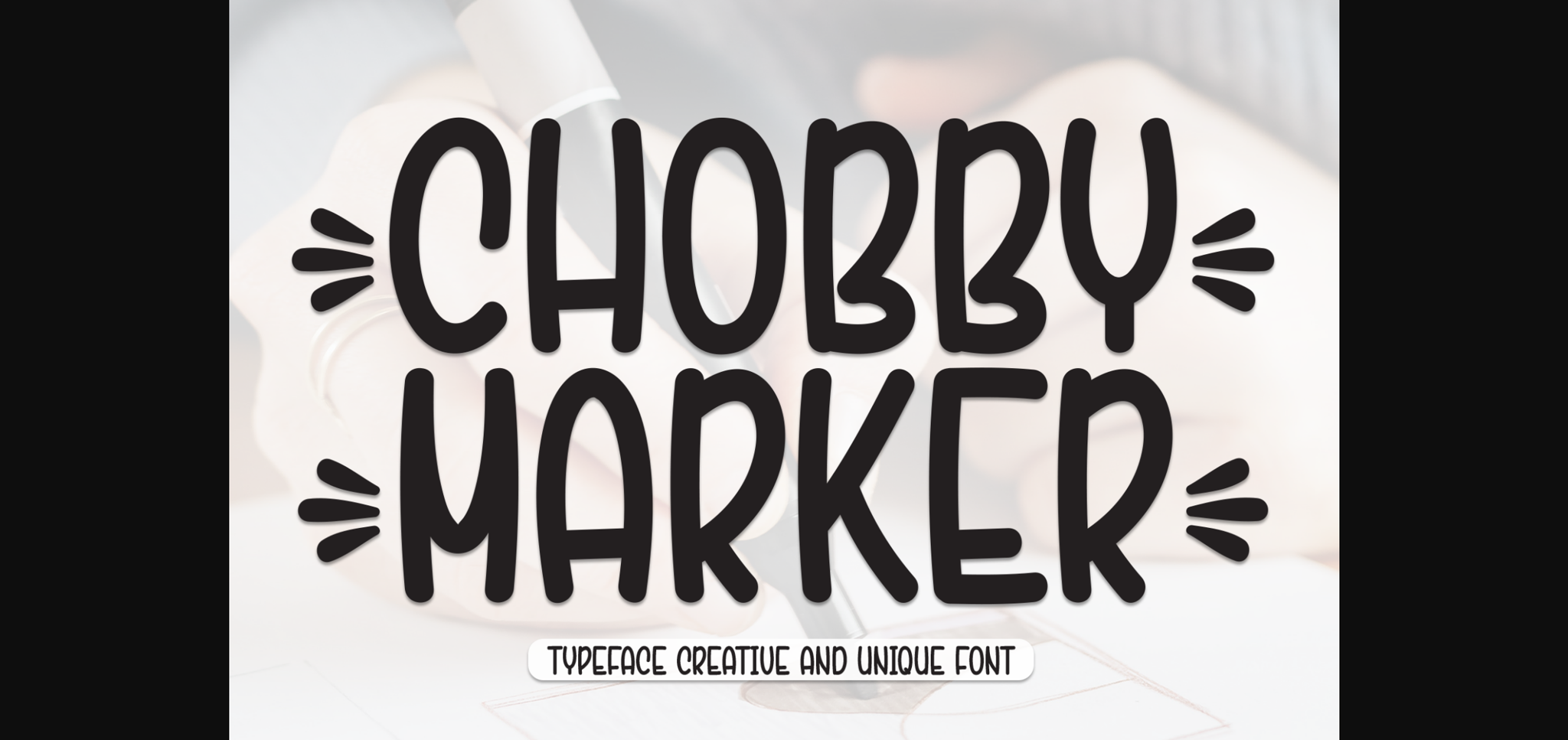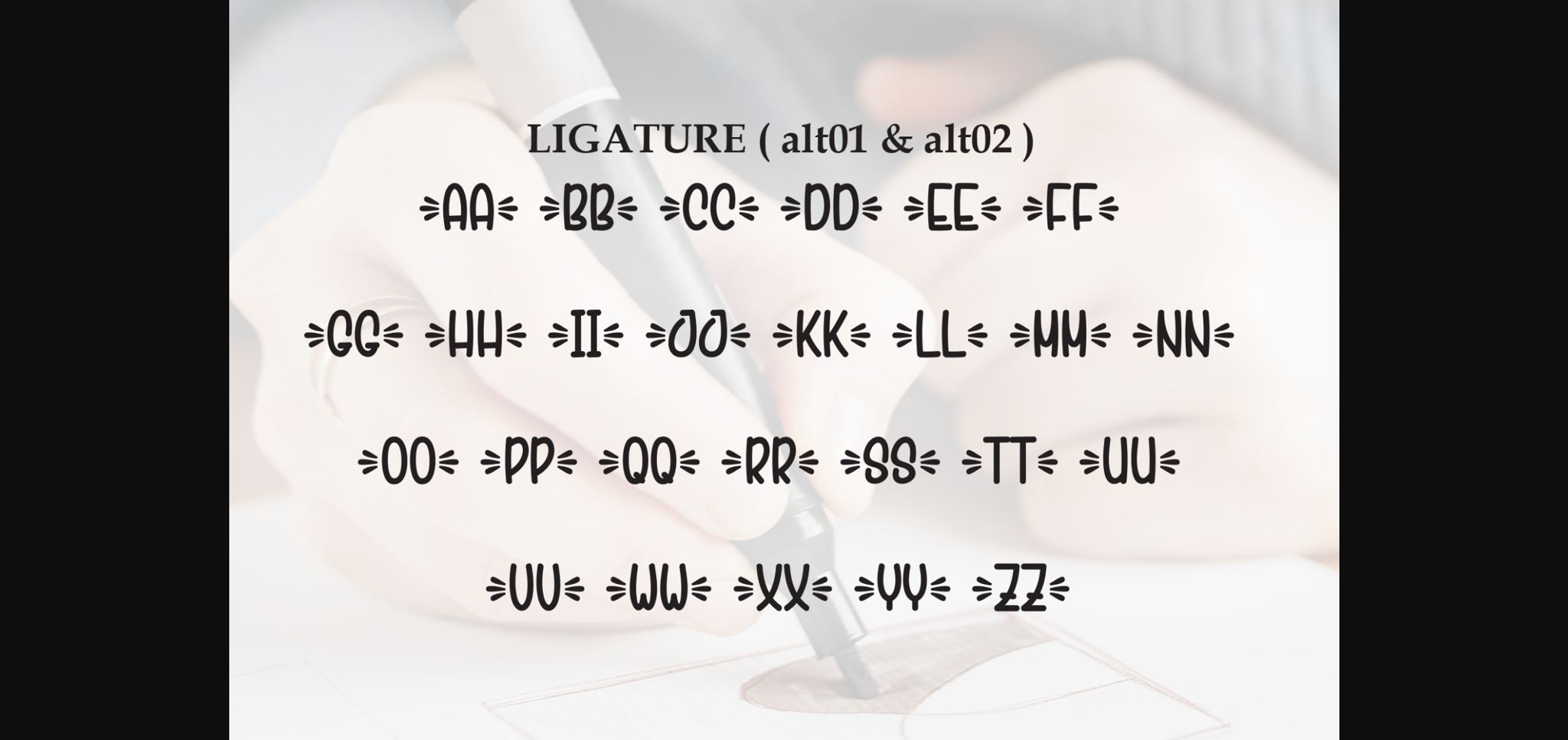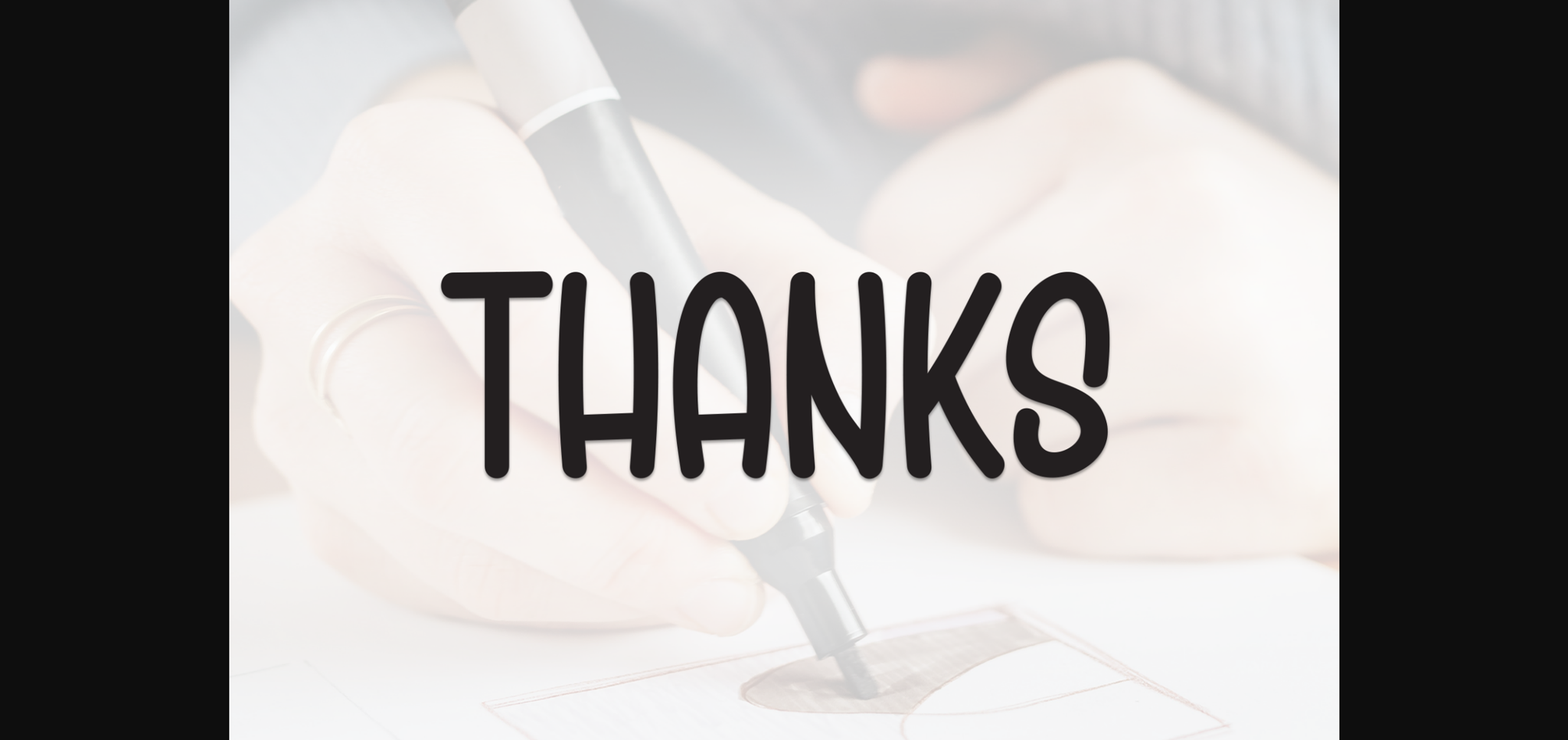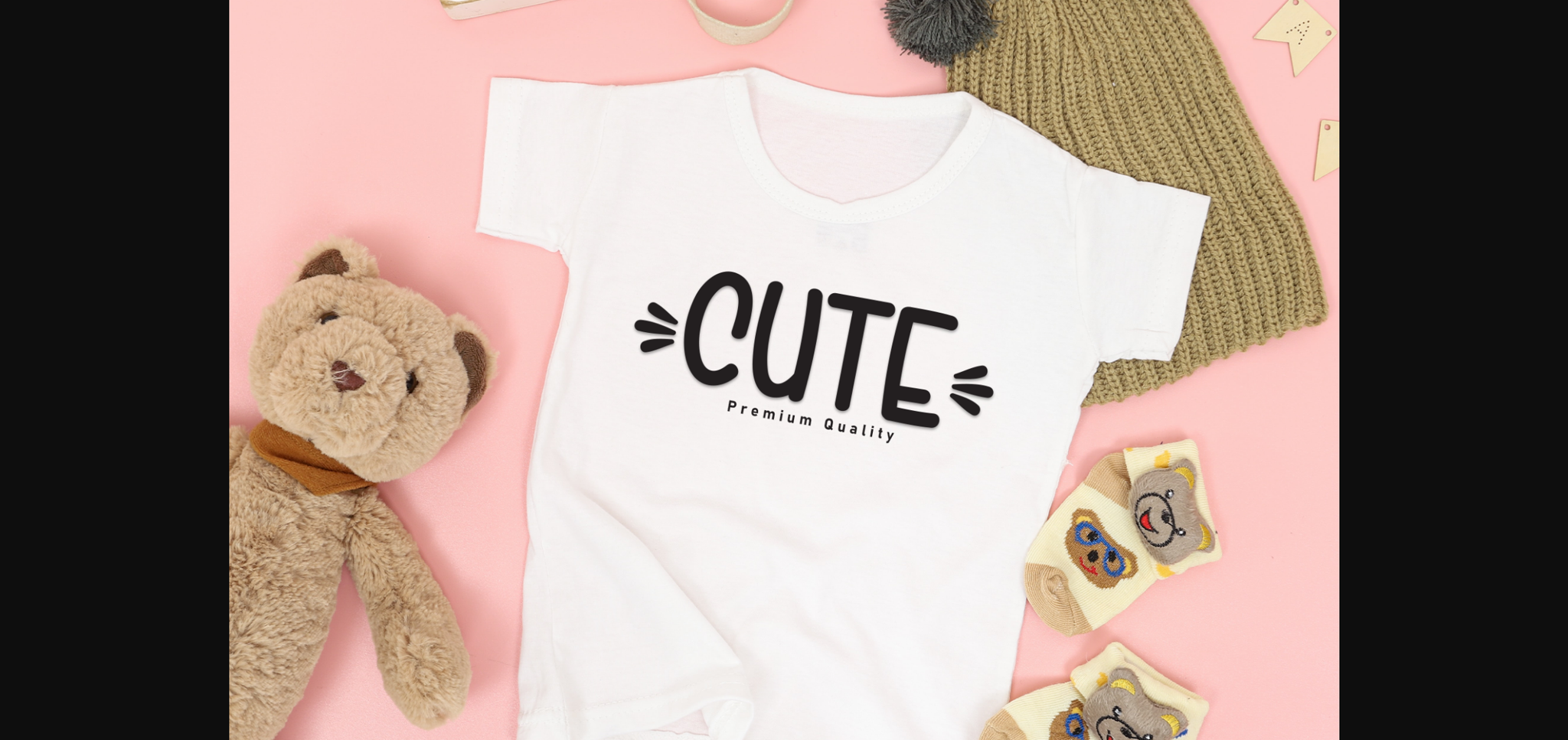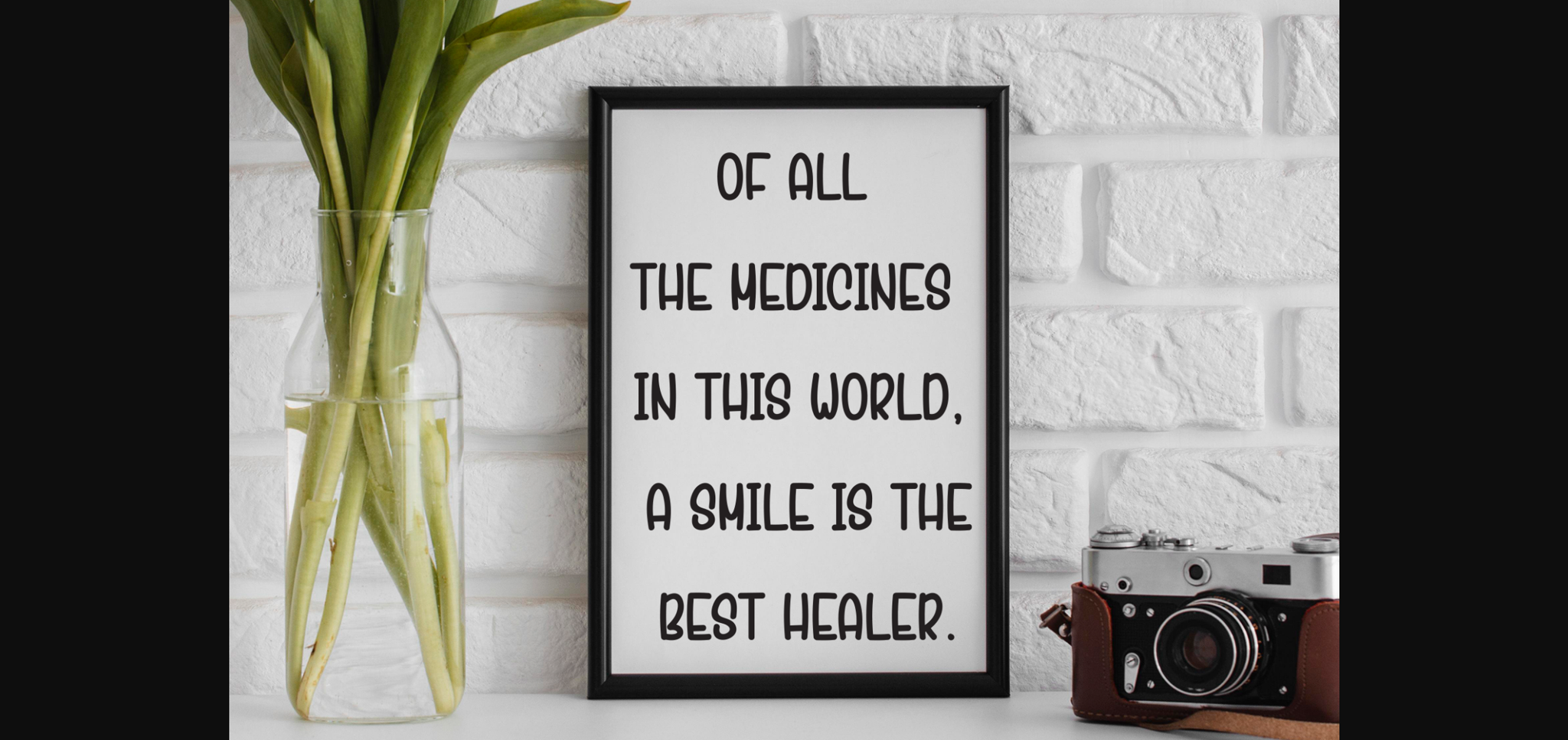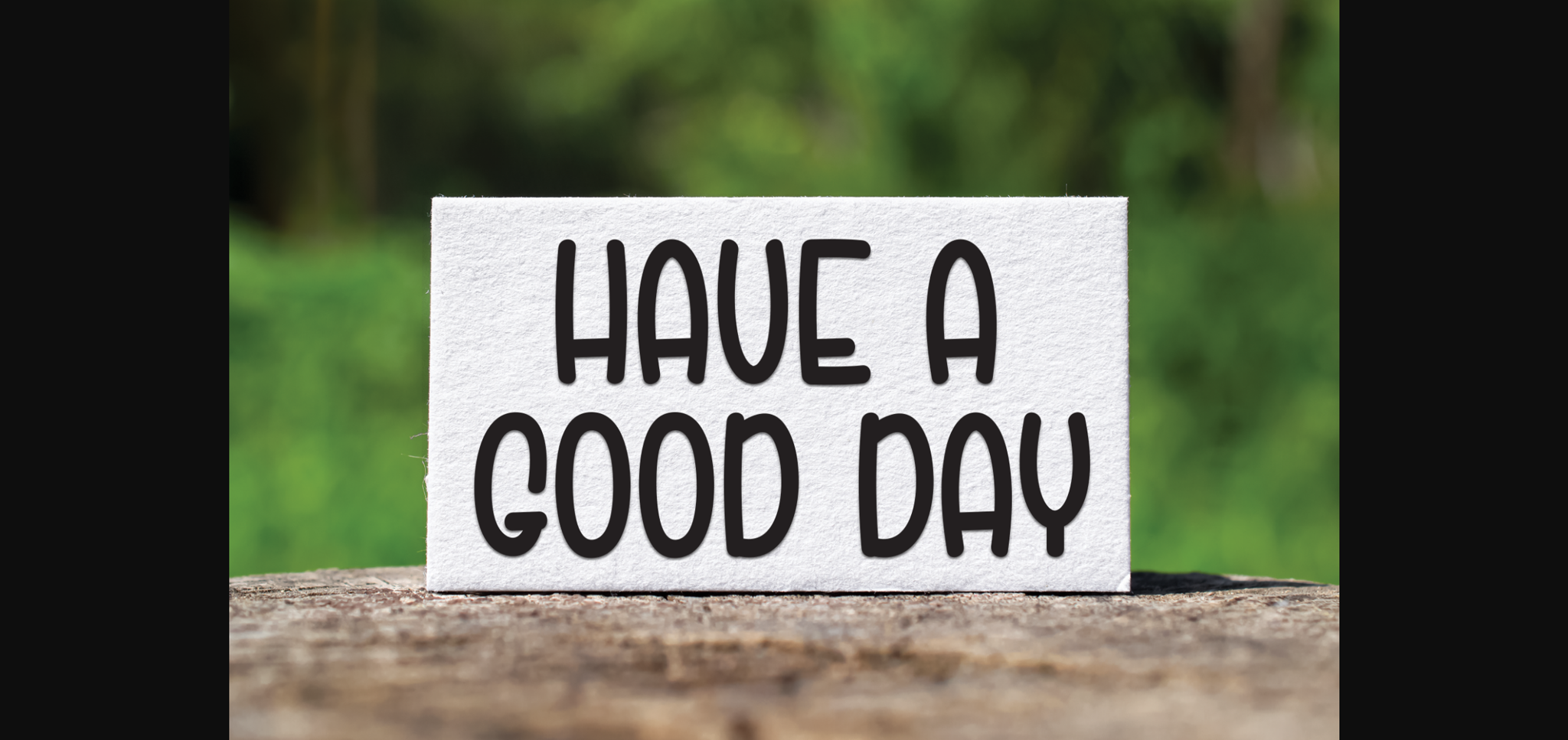
Chobby Marker Font
About Chobby Marker Font
Chobby Marker is a friendly sans-serif font that effortlessly combines approachability with clarity. Its balanced letterforms and subtle curves create a welcoming and versatile aesthetic. Perfect for projects requiring a warm and inviting touch, Chobby Marker adds a friendly, modern flair to your creative endeavors.